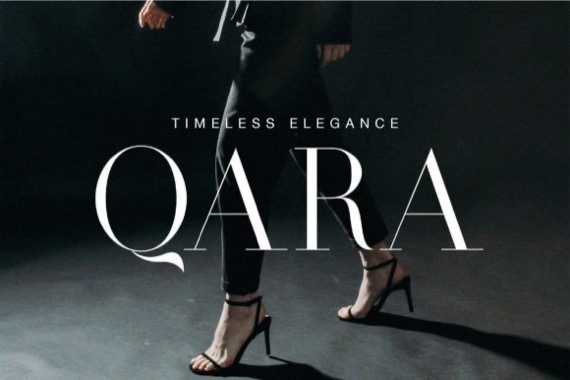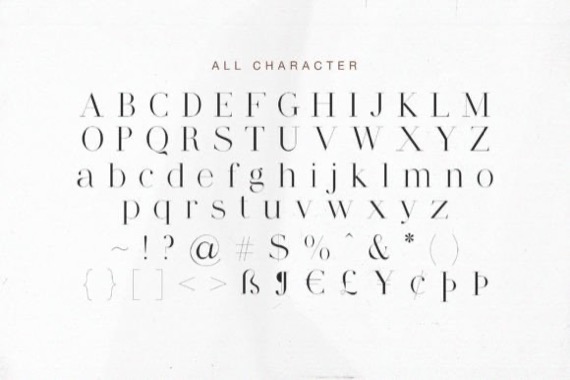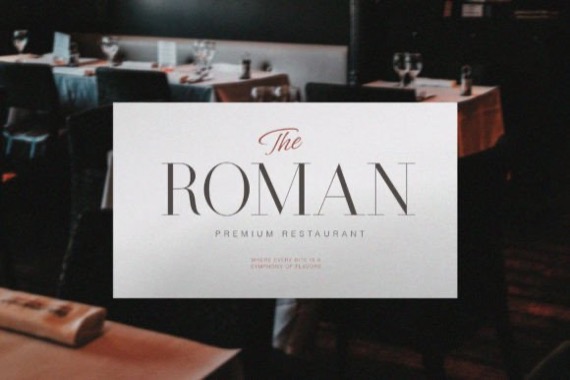
Qara is a breathtaking and luxurious serif font that was created and shared by Tammami. It exudes elegance, luxury, and an unparalleled sense of fashion. With its sleek and refined design, Qara captures attention and adds a touch of sophistication to any project.
Qara Serif Font
Designer, Publisher: Tammami